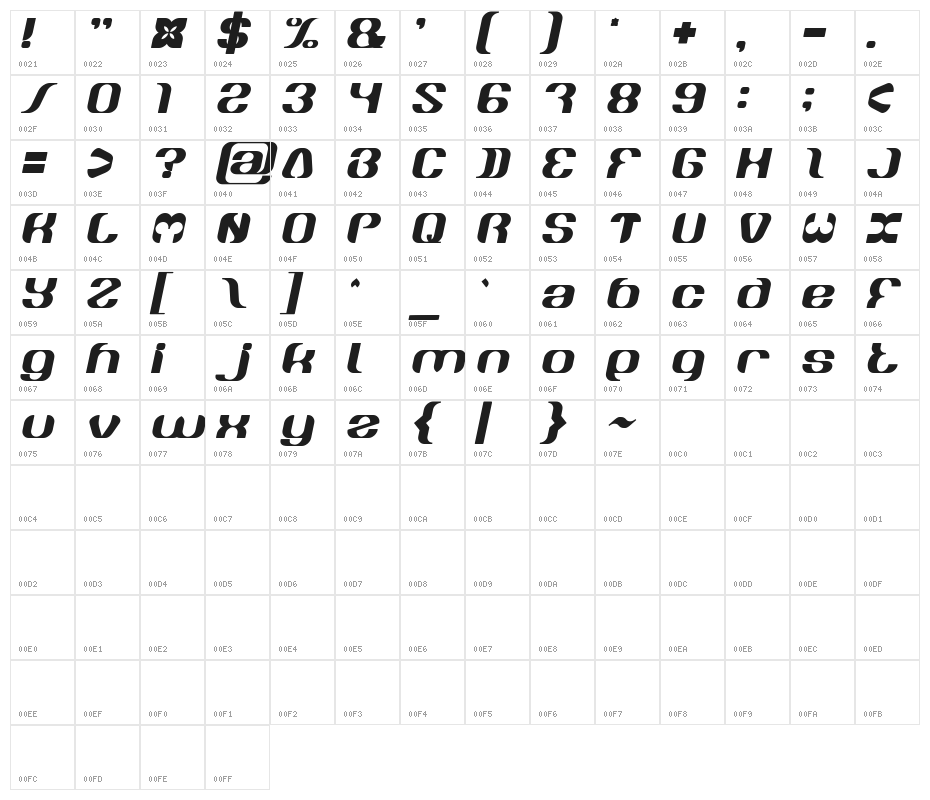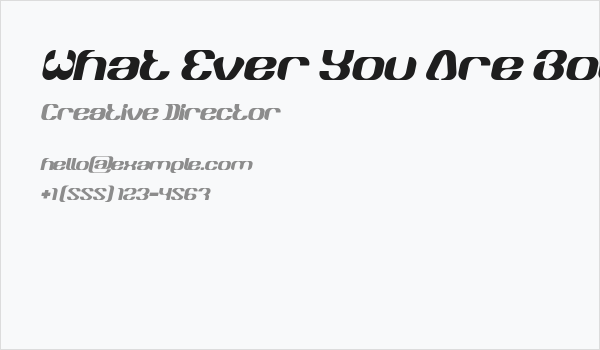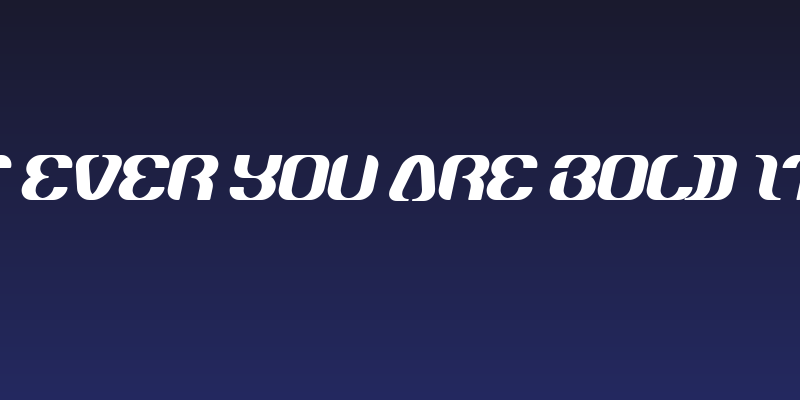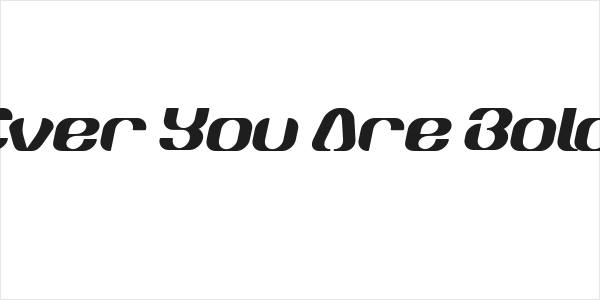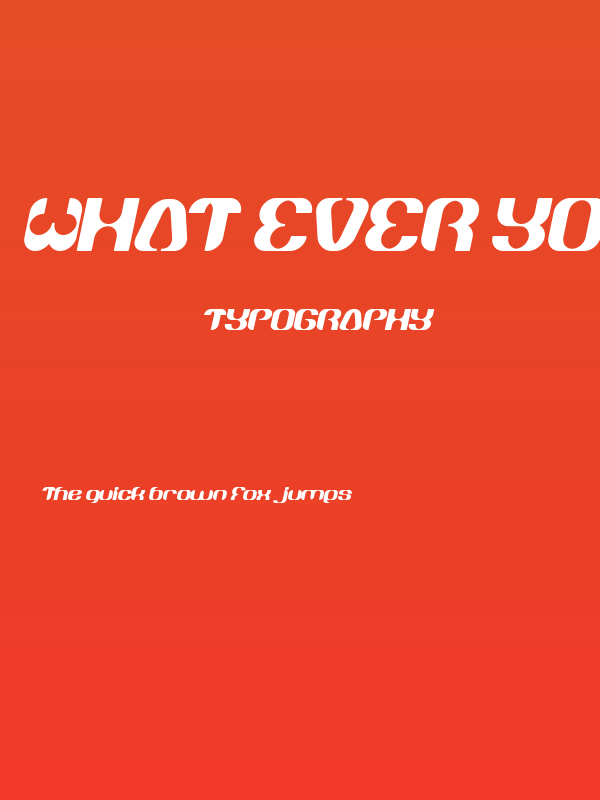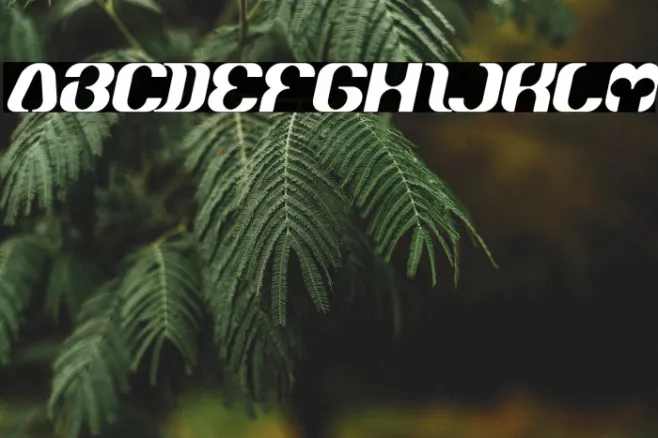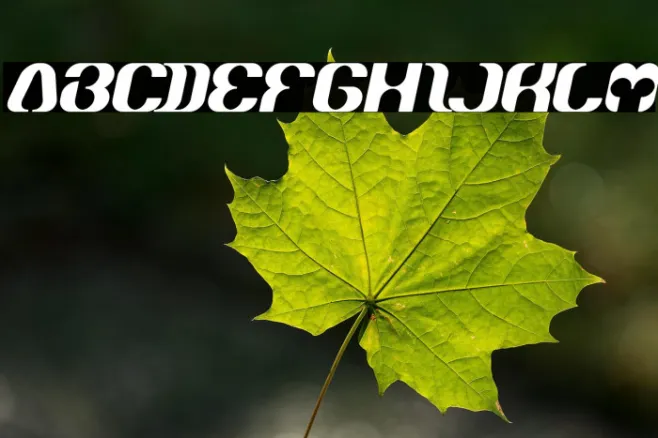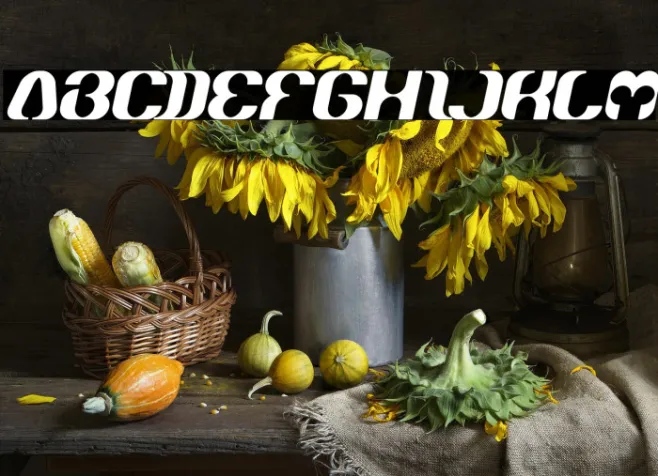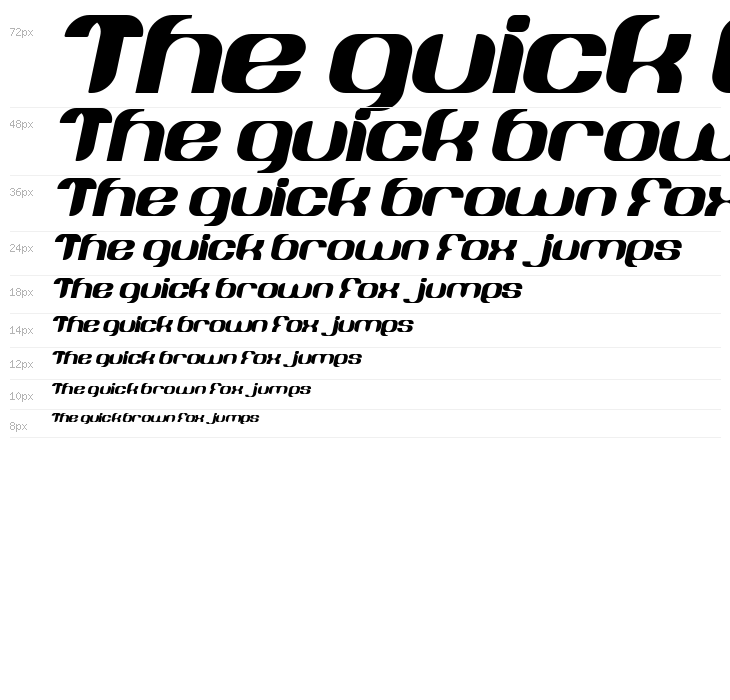
What Ever You Are Bold Italic Font
What Ever You Are Bold Italic Description
This font features a bold and italicized style with a distinct modern flair. The characters are designed with a strong emphasis on angular and curved elements, creating a dynamic and energetic appearance. The uppercase and lowercase letters maintain a consistent flow, while the numbers and special characters complement the overall aesthetic. The strokes are thick, contributing to the boldness, and the italic slant adds a sense of motion and urgency. This font is ideal for making a statement, with its eye-catching design and unique character shapes.
| Proposed Projects | Ideal for branding, advertising, headlines, and poster design where a strong visual impact is desired. |